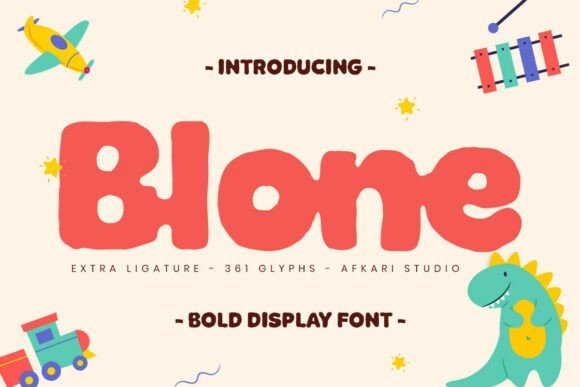
Unleash Your Creativity with Blone Font: The Ultimate Bold Display Font
You’ve spent hours brainstorming ideas, pouring over sketches, and experimenting with different color palettes. And then, it hits you – the perfect concept for your next design project. But, how do you make it stand out in a crowded space? This is where the Blone Font comes in – a powerful, bold display font designed to make a strong and confident visual statement.
Blone Font is the perfect solution for designers who want to create high-impact typography that instantly grabs attention. With its thick letterforms, solid structure, and modern proportions, this font delivers excellent readability even at large sizes. Whether you’re designing a bold brand identity, streetwear logo, or eye-catching editorial headline, the Blone Font gives your typography a fearless and energetic look that’s hard to ignore.
Blone Font Key Features
- Character Set: The font includes a wide range of characters, including Latin, Cyrillic, and Greek alphabets, as well as punctuation marks and symbols.
- Unique Characteristics: The font features a unique blend of modern and vintage elements, with clean lines, geometric shapes, and subtle texture, making it suitable for various design applications.
- Font Weight: Blone Font comes in three weights: Light, Regular, and Bold, allowing designers to choose the perfect weight for their project.
Blone Font Review
Blone Font is a unique and interesting font that caught my attention. Here’s a breakdown of its strengths and weaknesses:
- Blone Font has a distinctive and modern feel, making it perfect for trendy designs and branding projects.
- The font is highly legible, even at smaller sizes, which is great for digital applications.
- The font family includes multiple weights and styles, giving designers plenty of options for customizing their designs.
- Blone Font is highly versatile and can be used for a wide range of design projects, from headings to body text.
- Blone Font may not be the best choice for traditional or classic designs, as it has a modern feel that may clash with more conservative aesthetics.
- The font’s unique design can make it difficult to read for some users, particularly those with visual impairments.
- The font family is not as extensive as some other popular font families, which may limit its use in certain design projects.
Overall, Blone Font is a great choice for designers who want to add a touch of modernity and sophistication to their designs. While it has some limitations, its unique design and versatility make it a valuable addition to any designer’s toolkit.
Tips for Getting the Most Out of Blone Font
Use the Blone font for headings, titles, and captions to add a touch of elegance and sophistication to your design.
Combine the Blone font with other elegant fonts to create a harmonious and professional look.
Experiment with different font sizes and styles to add visual interest to your design.
Business cards and marketing materials
Editorial and publishing design
Wedding and event design